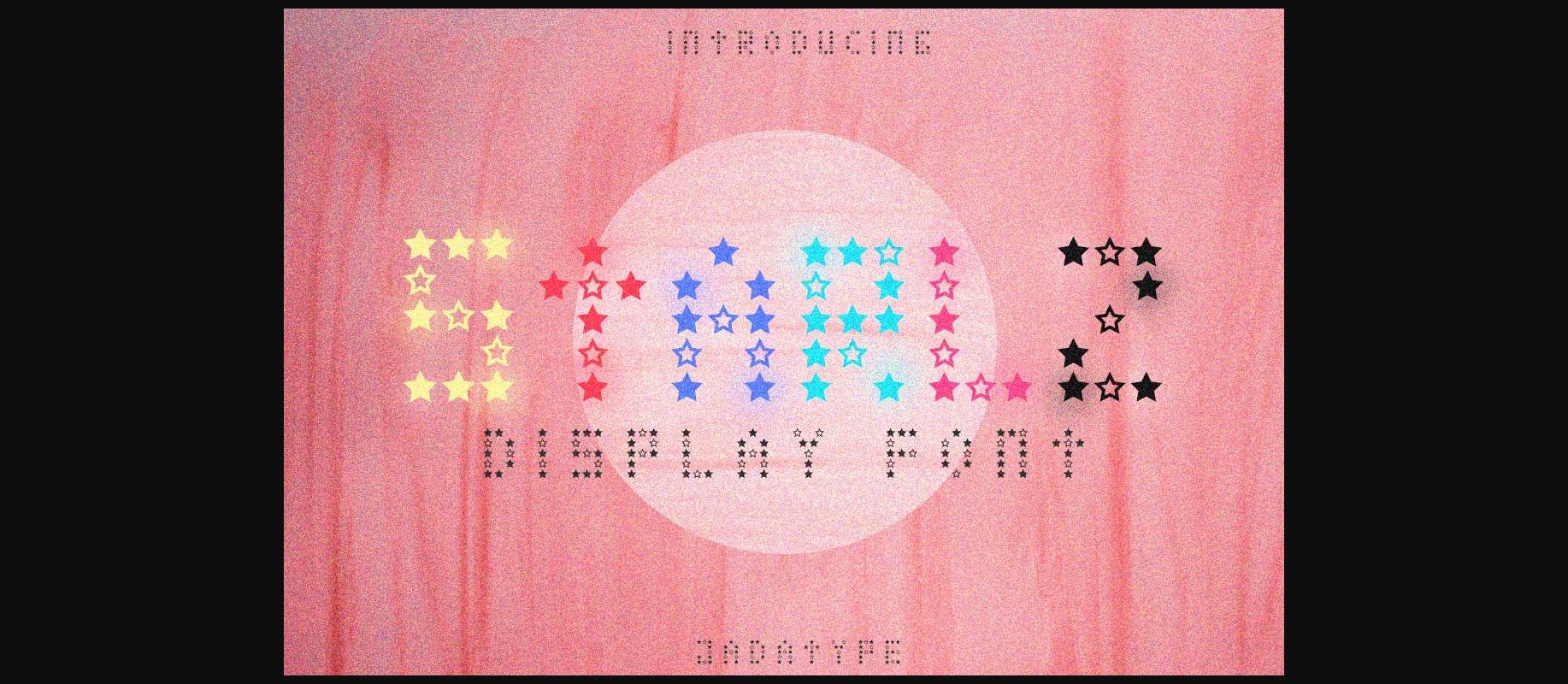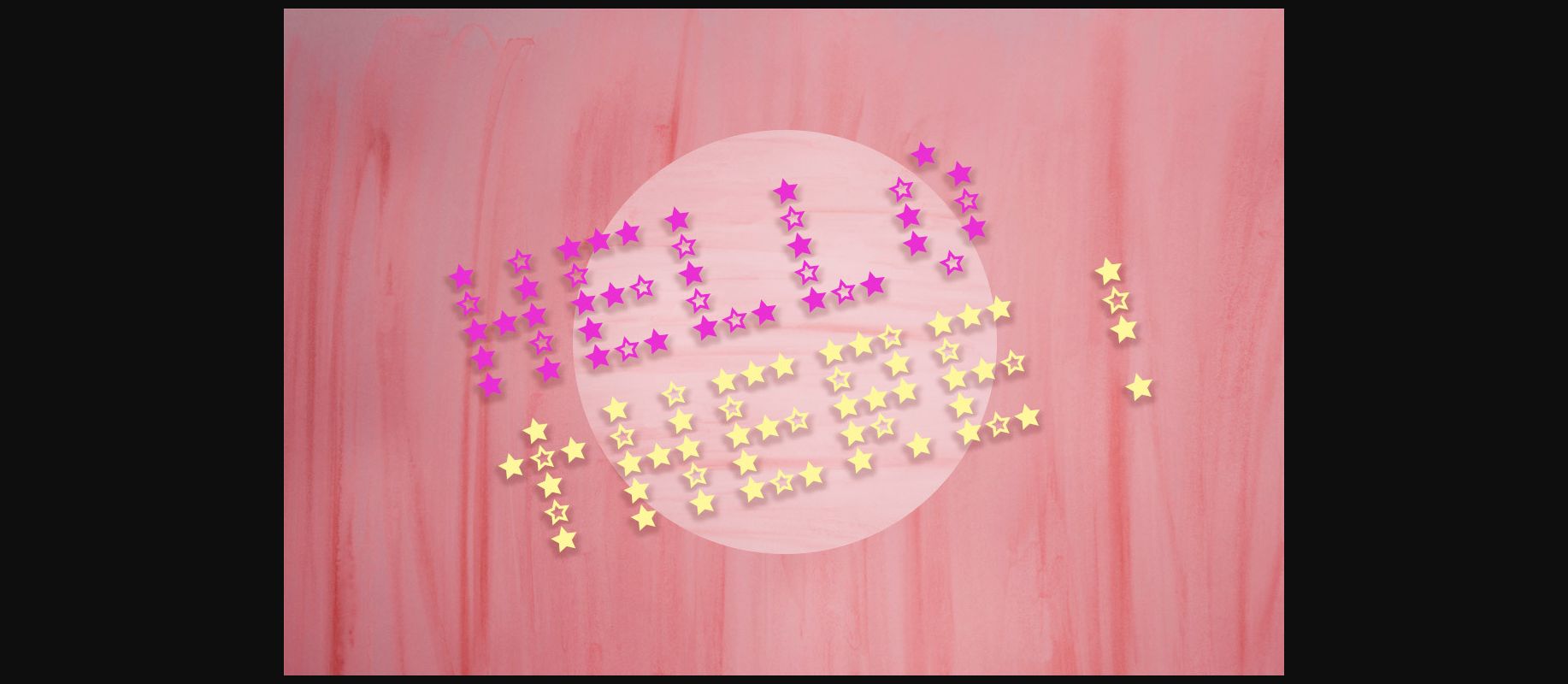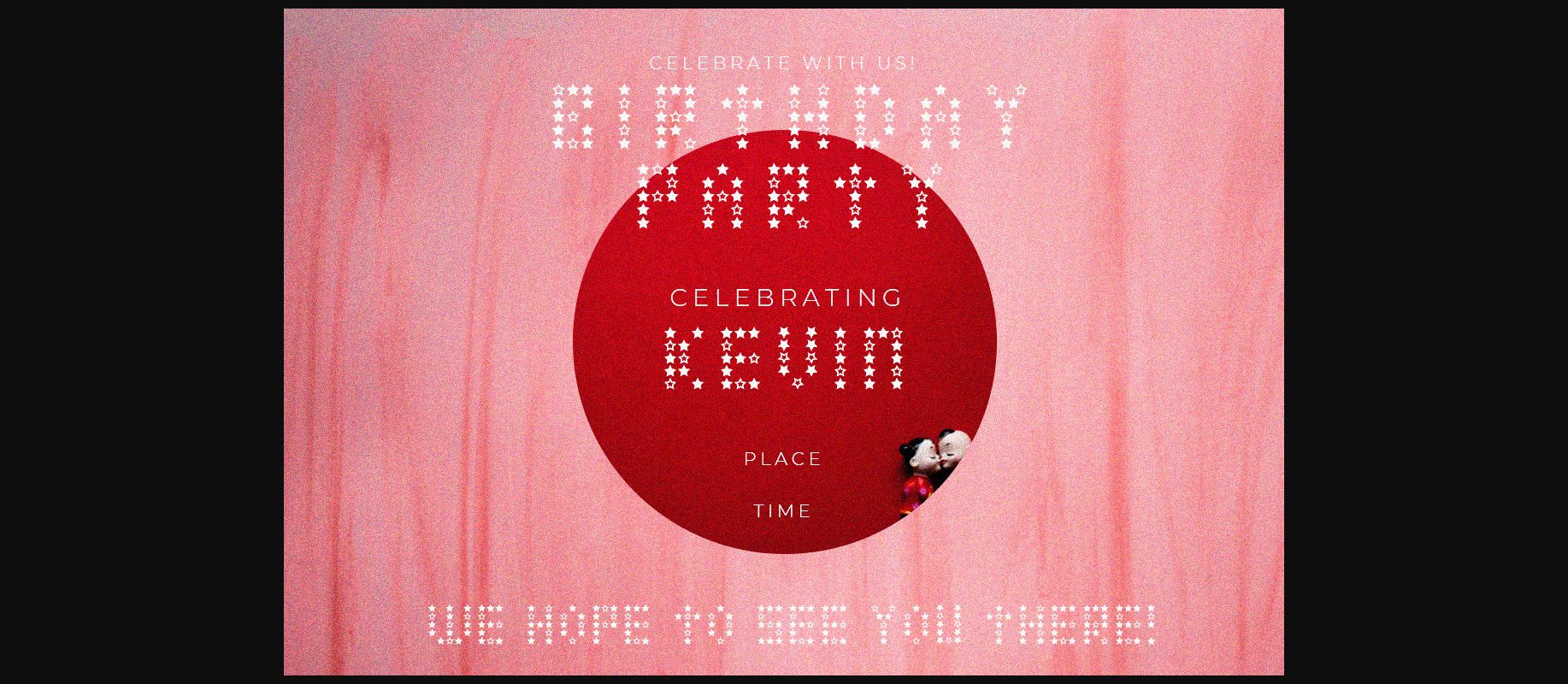
About Starlz Font
Starlz is a cool and trendy decorative font, featuring characters designed with the help of little stars. This font is perfect for childrenĀ themed designs, especially when combined with bright colors.